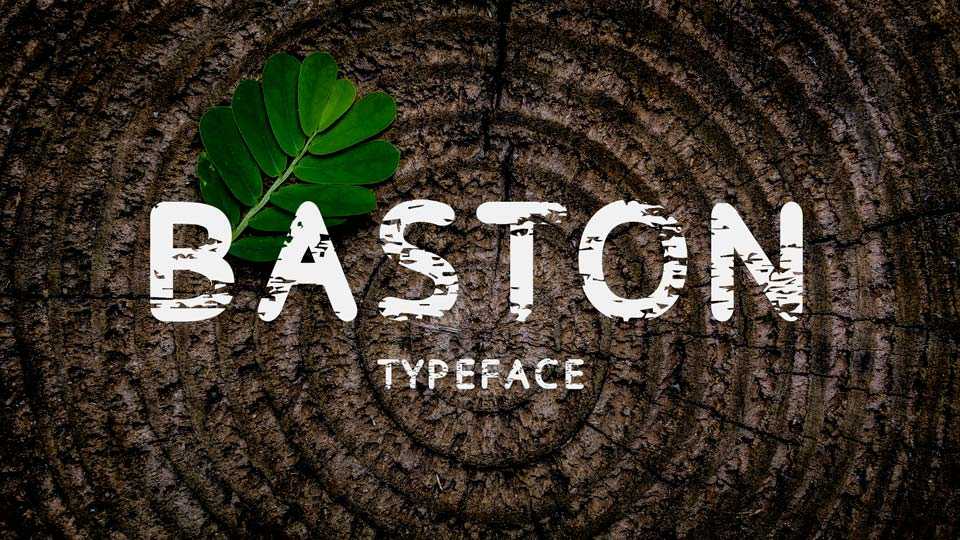
Download Baston font, a wood textured all caps display typeface. Baston font is suitable for headlines, posters, signage, prints and more.
Designer: Iordanis Passas